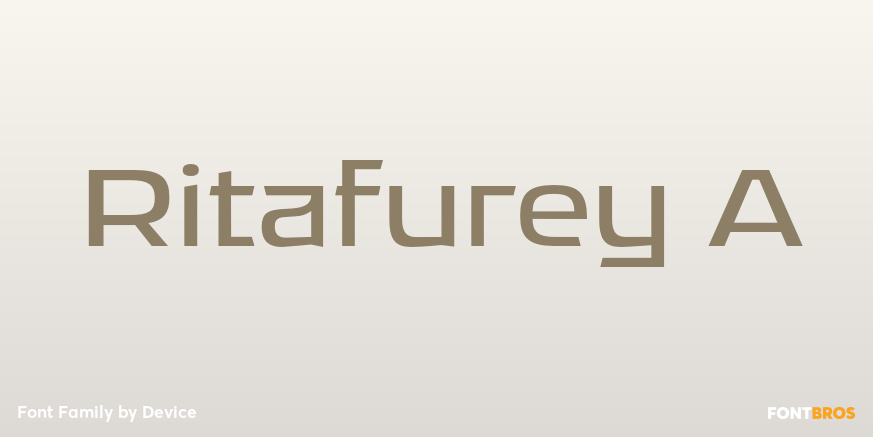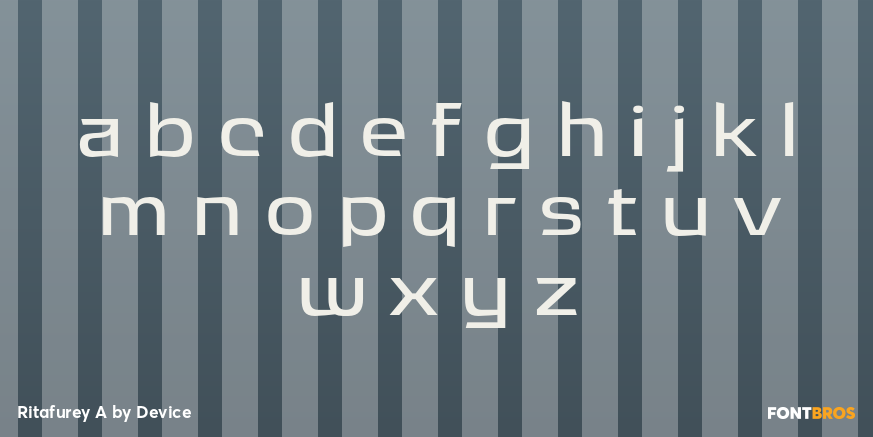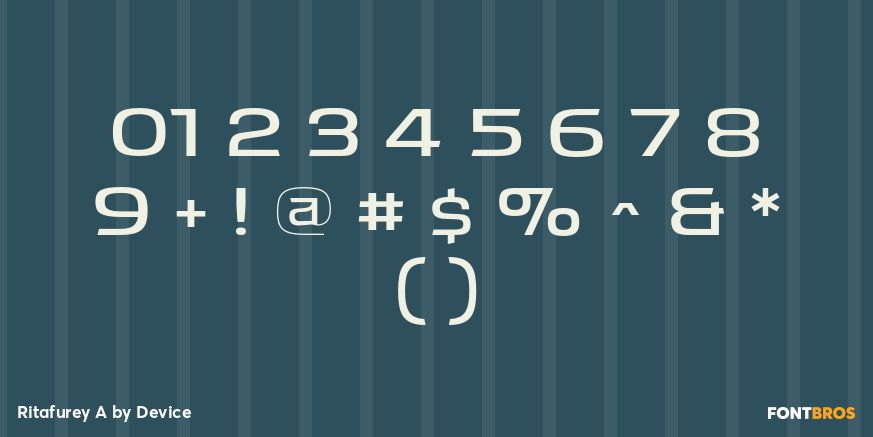
Ritafurey A
Font Family by Device
Ritafurey A is a futuristic sans serif family with a sharp, forward-looking feel. Its clean construction and slanted companion styles give it a sleek, technical voice that feels at home in contemporary branding, sci-fi inspired layouts, and bold display settings.
This family includes 6 styles: Extra Light, Extra Light Italic, Medium, Medium Italic, Bold, and Bold Italic. That range makes it useful for building contrast across headlines, logos, packaging, posters, social graphics, and other design work that benefits from a modern, engineered edge.
Designed by Device, it offers a focused set of weights for projects that need a streamlined sans with a distinctly futuristic attitude without feeling overly decorative.